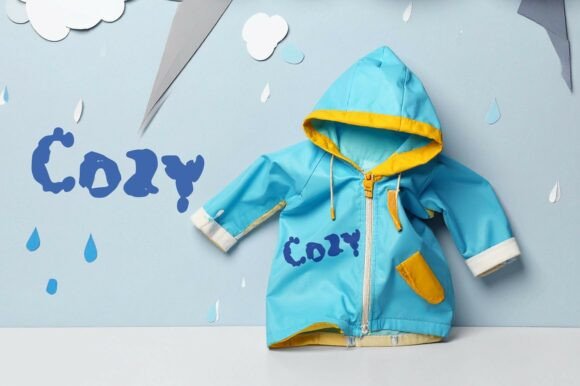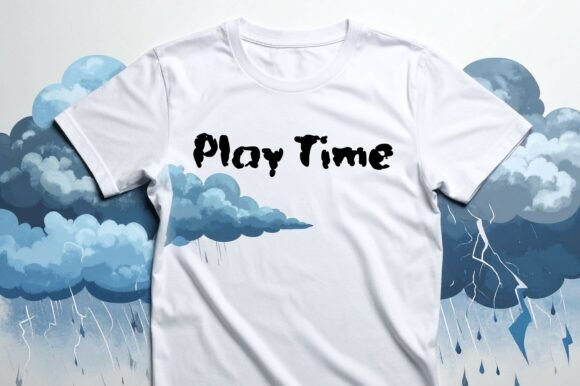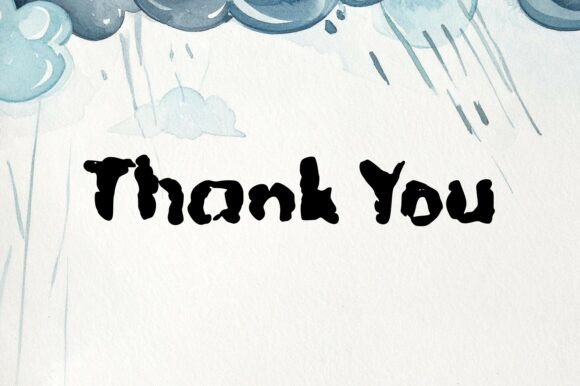
Introducing Cloudy Cloud: The Whimsical Display Font That’s Changing the Game
Are you tired of using the same old fonts in your designs? Look no further than Cloudy Cloud, a delightfully unconventional display font that’s sure to bring a drop of whimsy and inventive twinkle to your design palette. Inspired by the gentle contours of clouds and the soft dispersal of raindrops, Cloudy Cloud embodies its own unique ‘drippy’ persona that gleefully blends simplicity with allure in each strike.
A Font Like No Other
Cloudy Cloud is more than just a font – it’s a captivating spectacle that’s intentionally flawed and irresistibly charming. Its distinguished bubbly style and meticulous liquidity alter the paradigm of a conventional typeface, transforming it into a whimsical sketch instead. The tender bends and circular attributes of Cloudy Cloud inspire soothing imaginations and fuel artistic daydreams, with the ‘drip’ element offering a distinctive, fun twist.
The Cloudy Cloud Kit: A Treasure Trove of Design Delights
The captivating Cloudy Cloud kit provides a range of design goodies, including:
- Skillfully crafted uppercase and lowercase letters, meticulously designed to complement each other.
- Numerals to satisfy all your numerical needs.
- A range of characters that are sure to add a touch of whimsy to your designs.
What Makes Cloudy Cloud So Special?
So, what sets Cloudy Cloud apart from other fonts on the market? Here are just a few things that make it so special:
- Unique ‘drippy’ persona: Cloudy Cloud’s distinctive style is inspired by the gentle contours of clouds and the soft dispersal of raindrops.
- Whimsical and playful: This font is perfect for designers who want to add a touch of whimsy and fun to their designs.
- Captivating spectacle: Cloudy Cloud is a font that’s sure to grab attention and leave a lasting impression.
- Meticulously designed: Every letter and character has been carefully crafted to ensure that Cloudy Cloud is both beautiful and functional.
Cloudy Cloud is the perfect font for designers and crafters who want to add a touch of personality to their work. Whether you’re creating a logo, a poster, or a social media graphic, this font is sure to make your design stand out from the crowd.
Here are just a few ways you can use Cloudy Cloud in your designs:
- Logos: Use Cloudy Cloud to create a unique and memorable logo that’s sure to grab attention.
- Posters: Add a touch of whimsy to your posters with Cloudy Cloud’s playful and eye-catching style.
- Social media graphics: Use Cloudy Cloud to create social media graphics that are sure to stand out from the crowd.
Get Ready to Fall in Love with Cloudy Cloud
If you’re looking for a font that’s a little bit quirky, a little bit playful, and a whole lot of fun, then Cloudy Cloud is the perfect choice. With its unique ‘drippy’ persona, captivating spectacle, and meticulous design, this font is sure to become a favorite in your design toolkit.